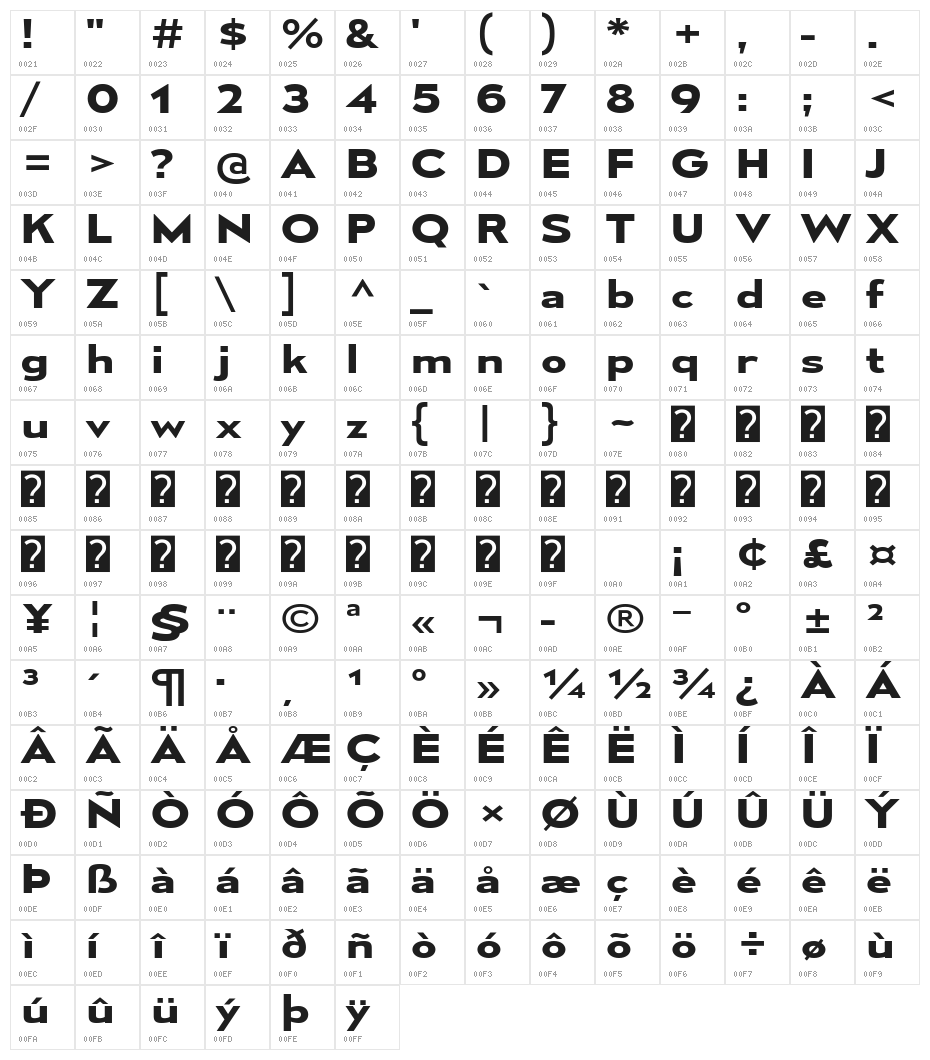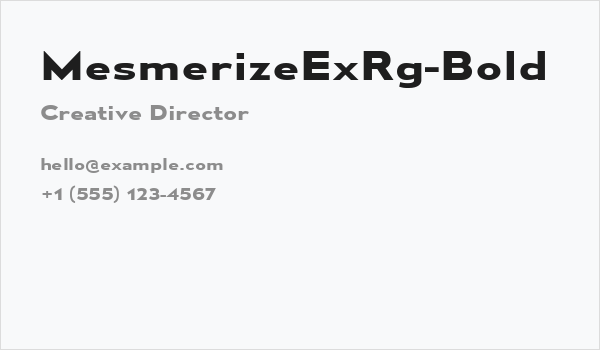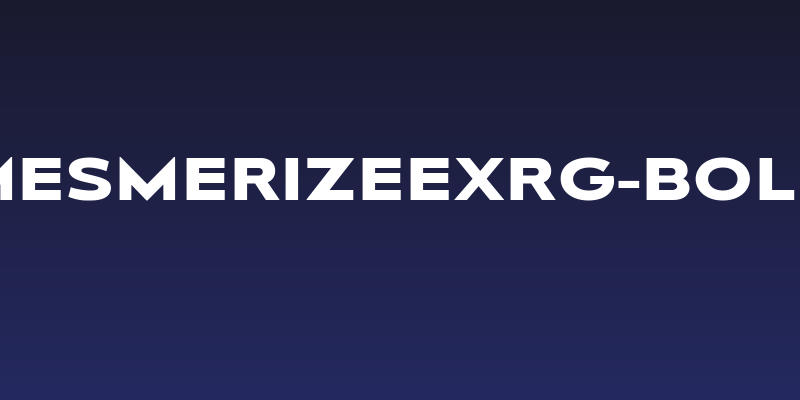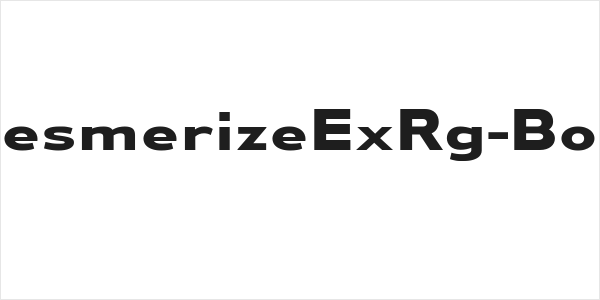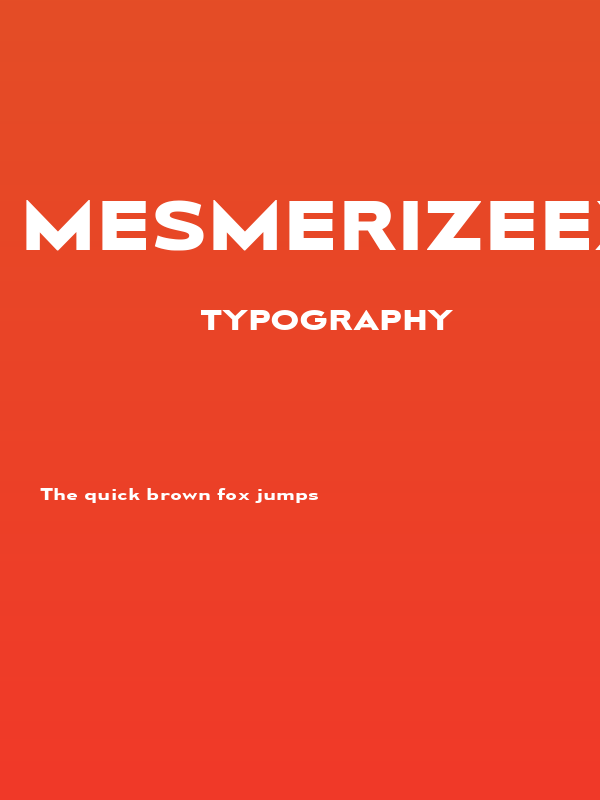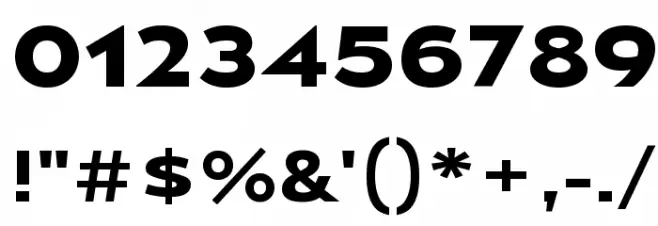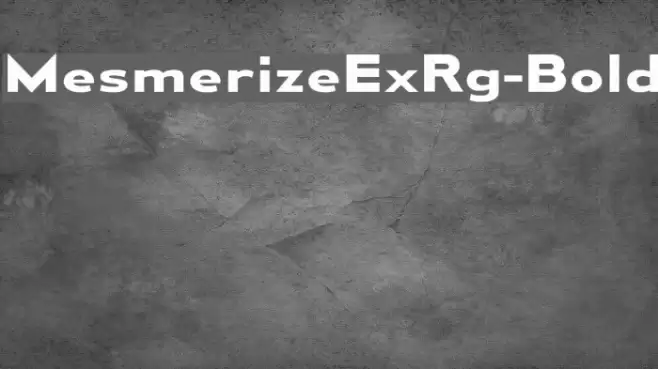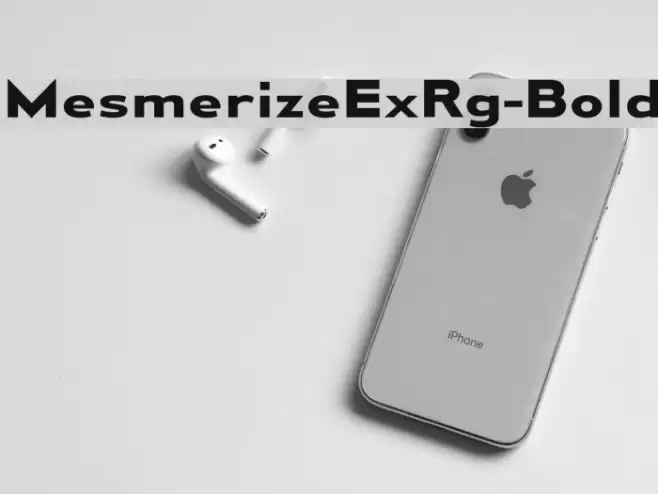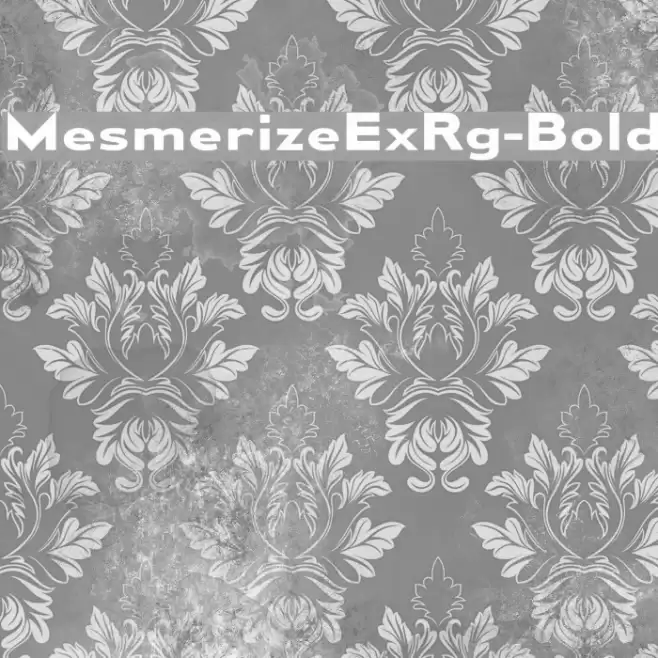
MesmerizeExRg-Bold Font
✎ Sans Serif
MesmerizeExRg-Bold Description
This font exhibits a bold and modern sans-serif style, characterized by its clean lines and geometric shapes. The uppercase letters are uniform in height, providing a strong and assertive appearance. The lowercase letters maintain a consistent x-height, ensuring readability and balance. Numbers are clear and distinct, making them suitable for various applications. Special characters are well-defined, enhancing the font's versatility. The overall design is sleek and contemporary, making it ideal for digital and print media.
| Use Case | Headlines, Logos, Digital content |
| Proposed Projects | Ideal for branding, advertising, headlines, and digital content where a strong, modern presence is desired. |